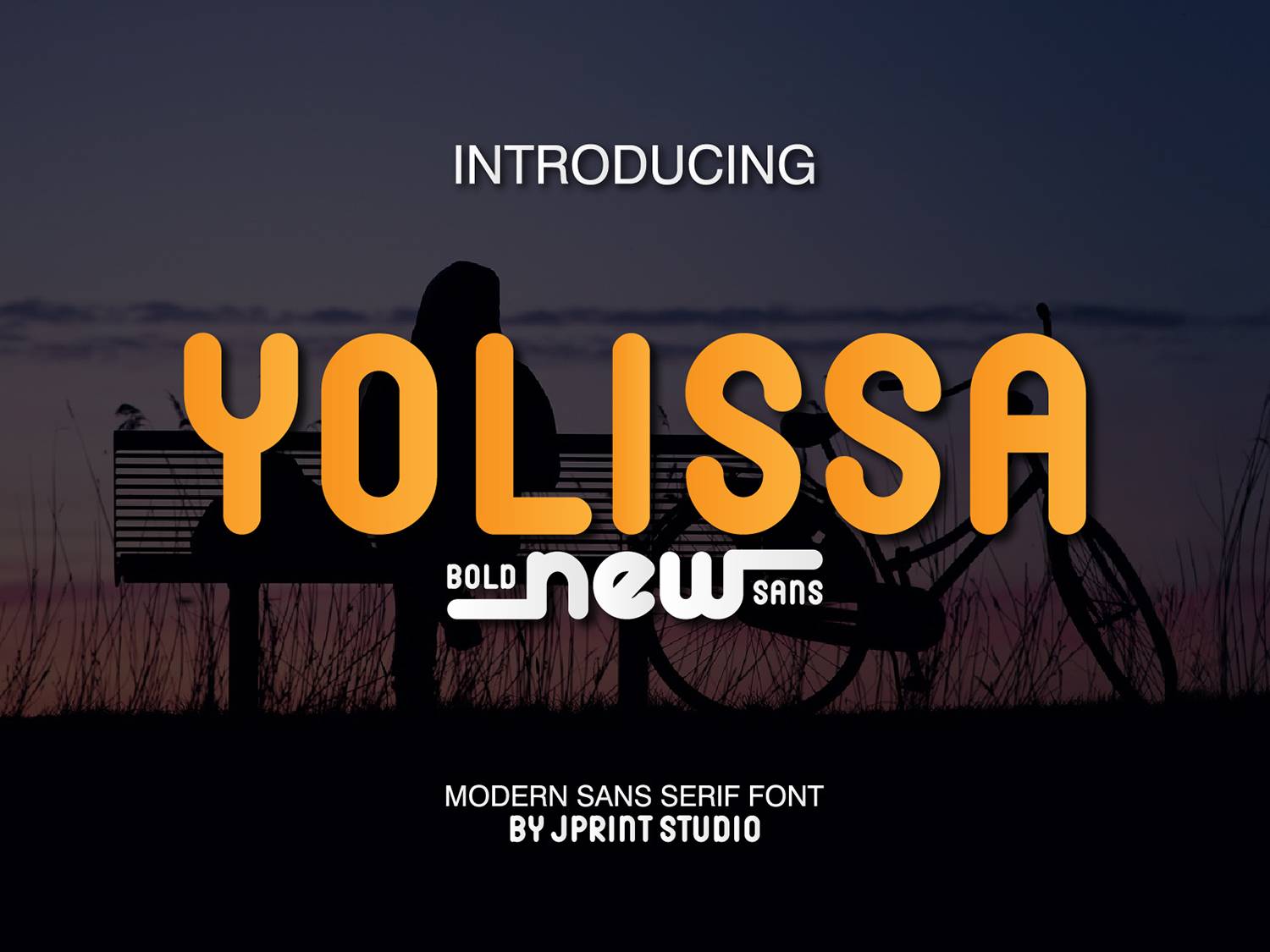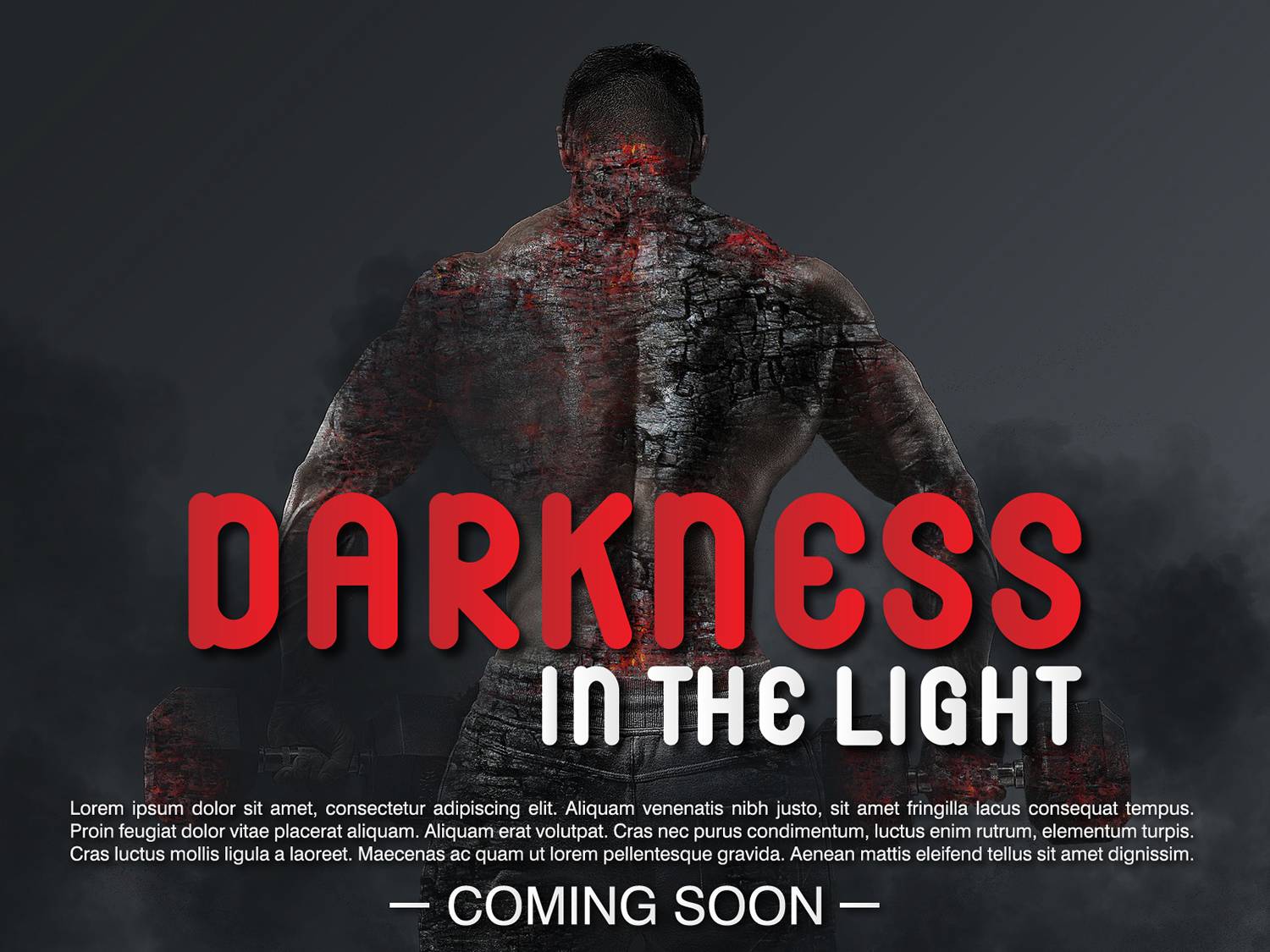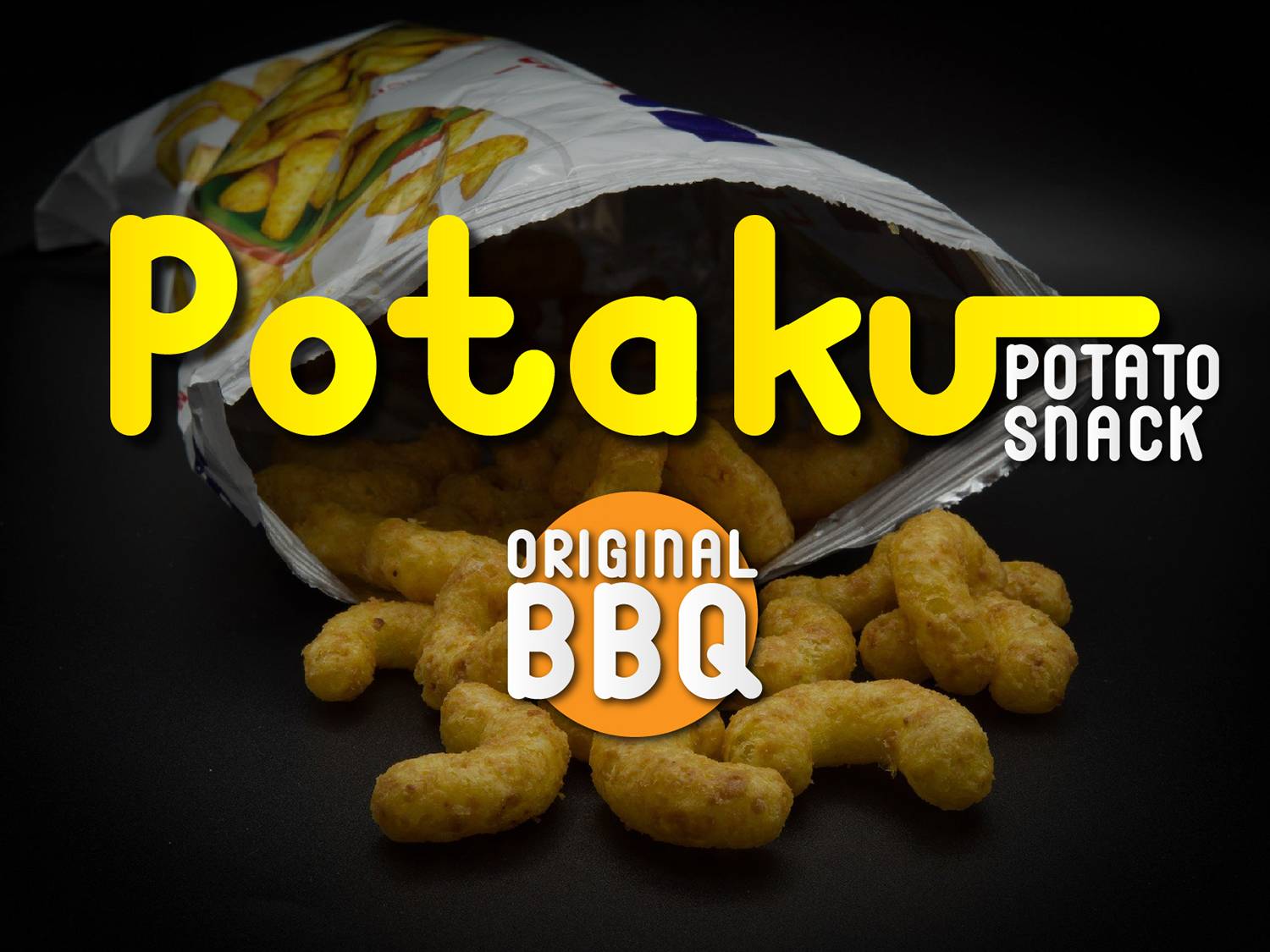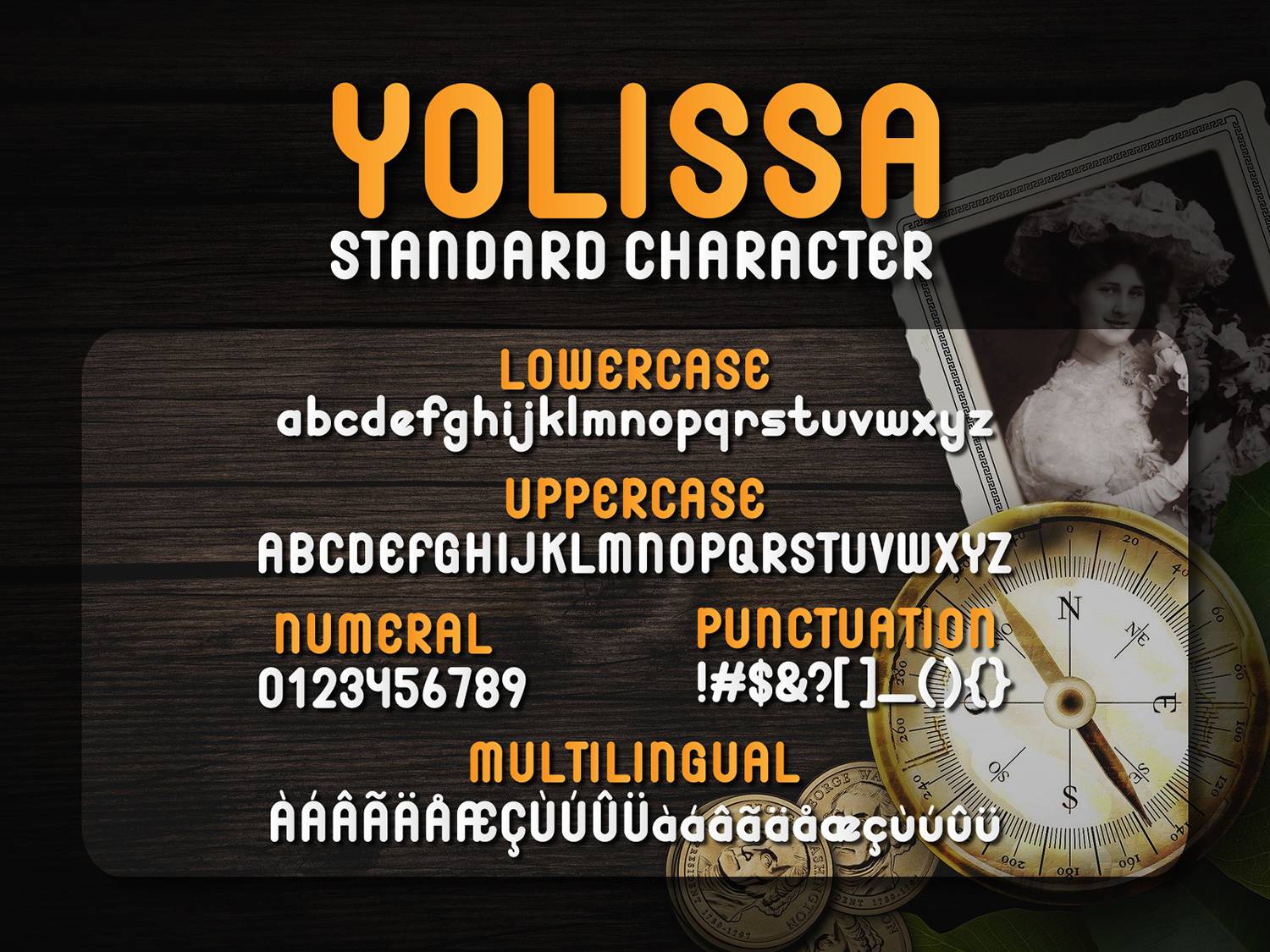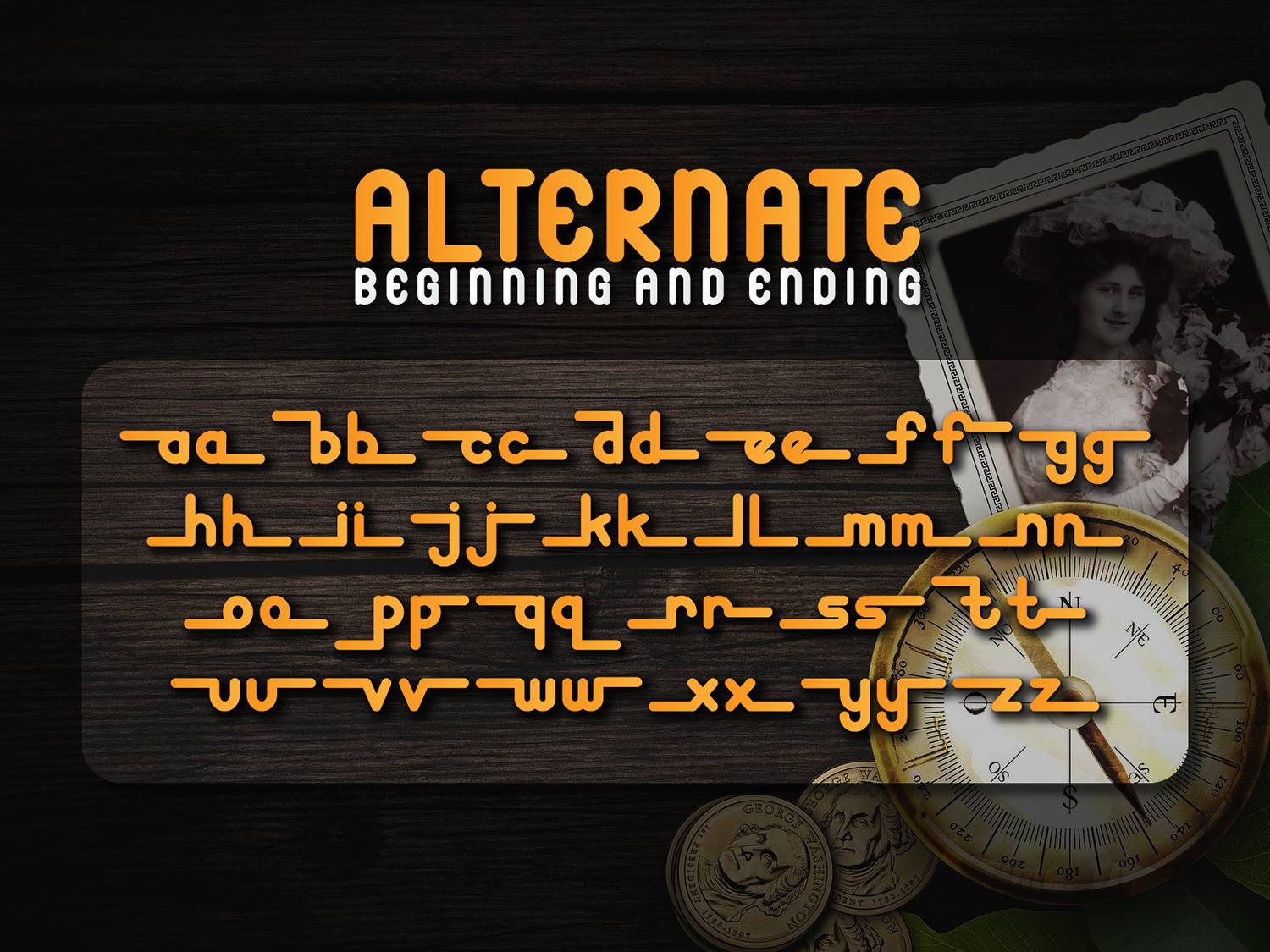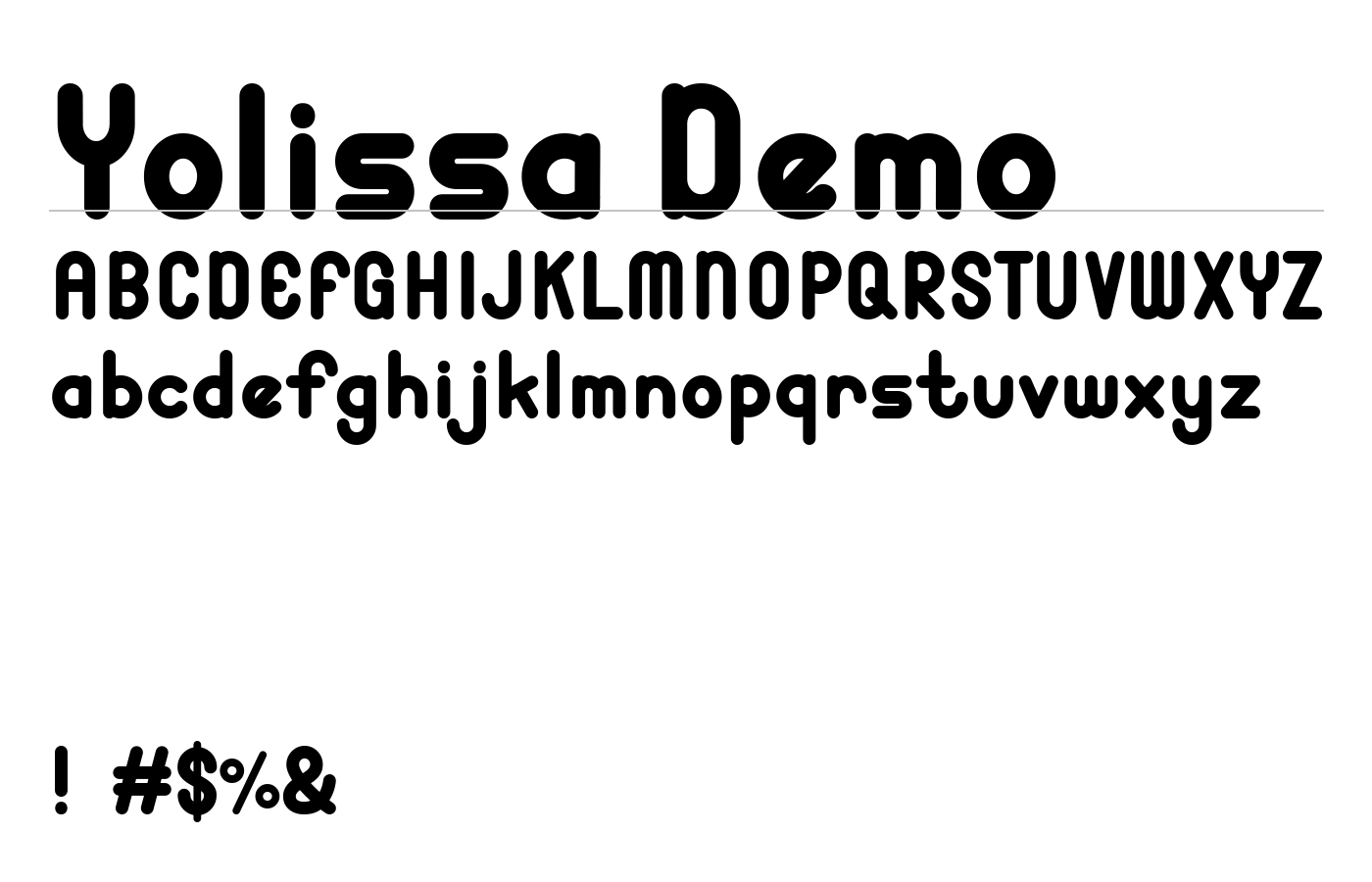
Yolissa is a rounded, bold sans serif font characterized by its playful and modern style, featuring evenly weighted strokes and soft, curved edges that impart a friendly and approachable vibe. Its unique letterforms with single-story 'a' and 'g' and slightly elongated shapes make it ideal for branding, headlines, and packaging where a youthful and energetic feel is desired. This font works well for creative projects needing a touch of fun without sacrificing readability.
Yolissa Font
About Yolissa Font